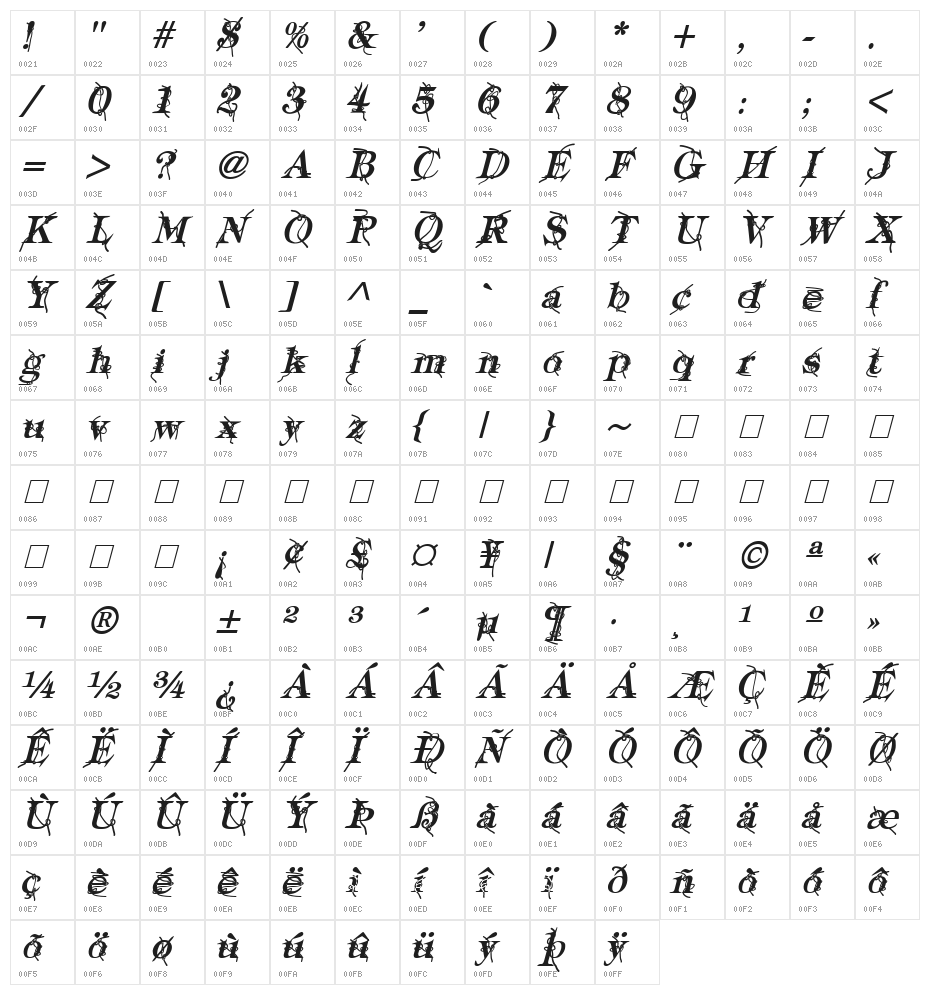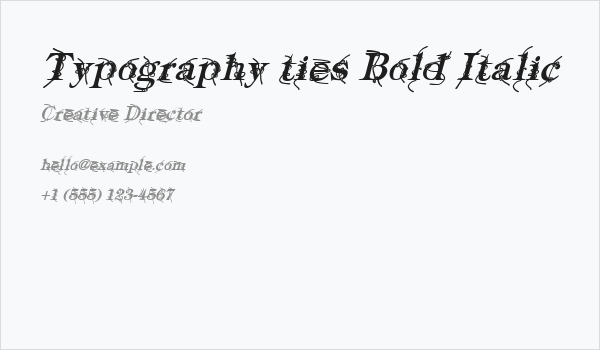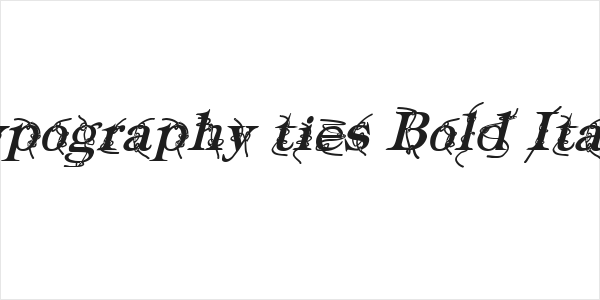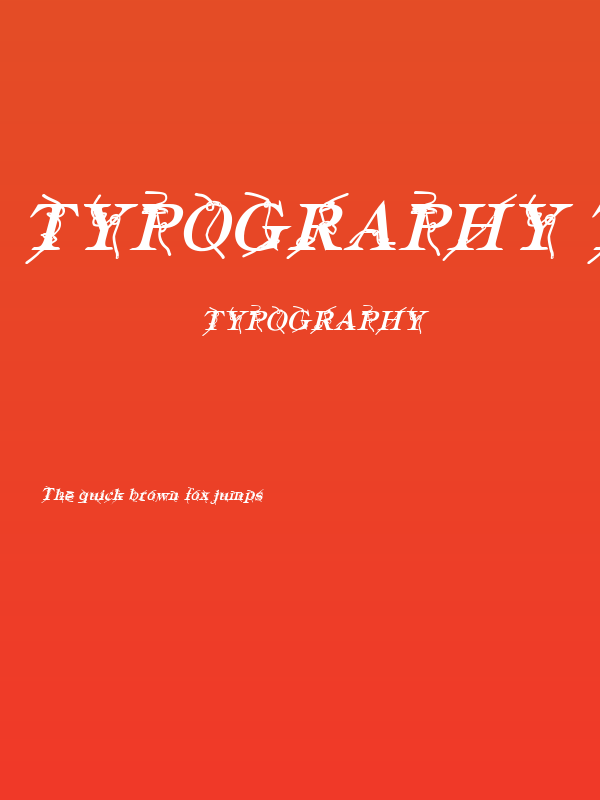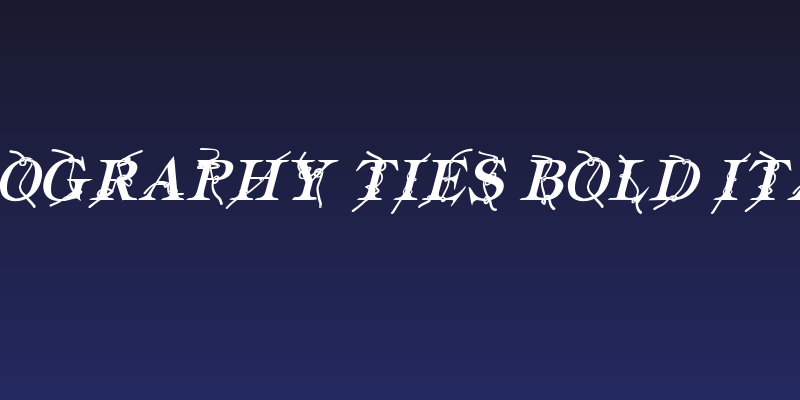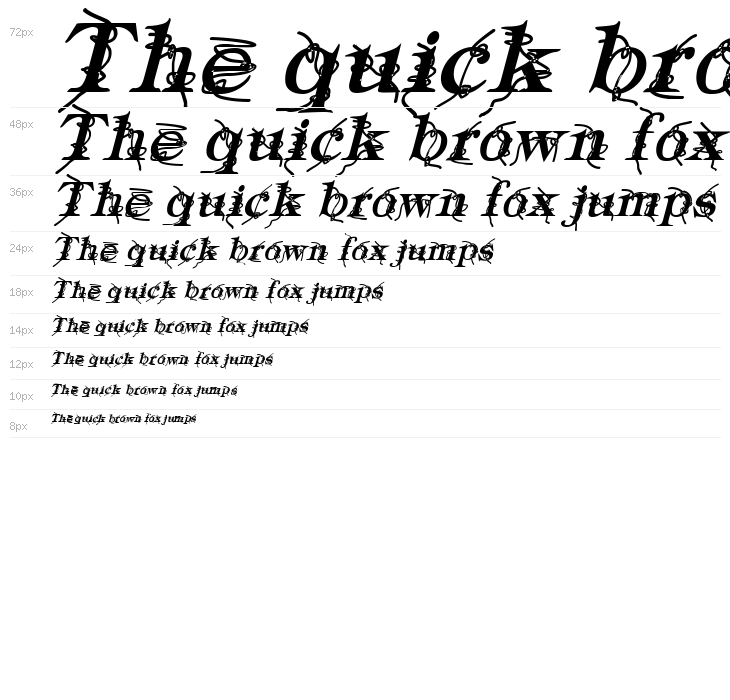
Typography ties Bold Italic Font
Typography ties Bold Italic Description
This font is a bold and italicized decorative typeface with a unique and intricate design. The characters are adorned with elaborate, vine-like embellishments that give it a distinct and artistic appearance. The uppercase and lowercase letters maintain a consistent style, with each character featuring these ornate details. The numbers and special characters are equally stylized, ensuring a cohesive look across all glyphs. This font's bold weight and italic slant add to its dramatic and eye-catching presence, making it ideal for creative and expressive projects.